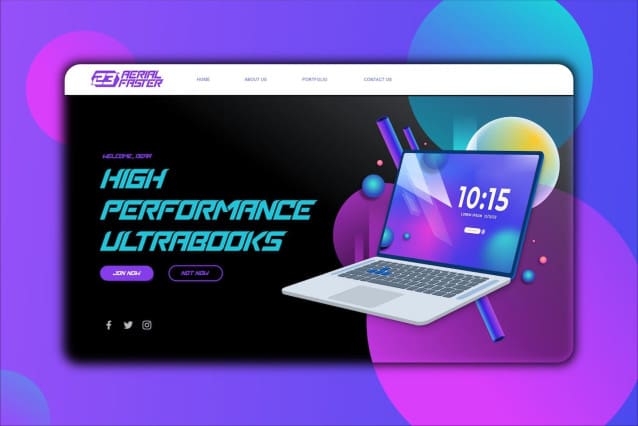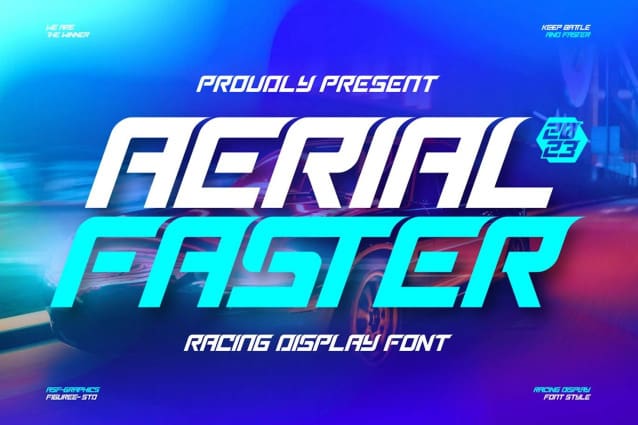
Aerial Faster Font
Aerial Faster Font is a high-octane racing display font that embodies the need for speed and the thrill of the racetrack. With its clean, streamlined letters, it’s the ideal choice for projects that demand a bold, dynamic and energetic style. Whether it’s racing event branding, automotive posters, or any other design aimed at capturing the essence of velocity, Aerial Faster adds a dynamic, visually striking aesthetic to your typography , ensuring your text gets a head start in the design game